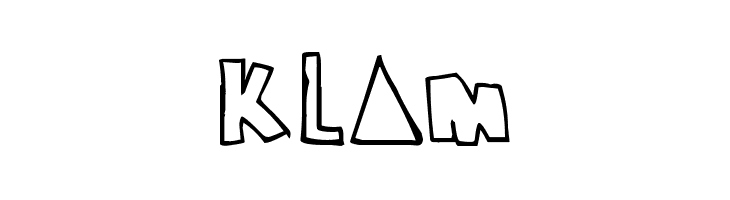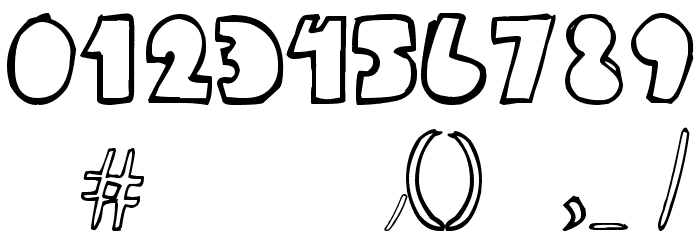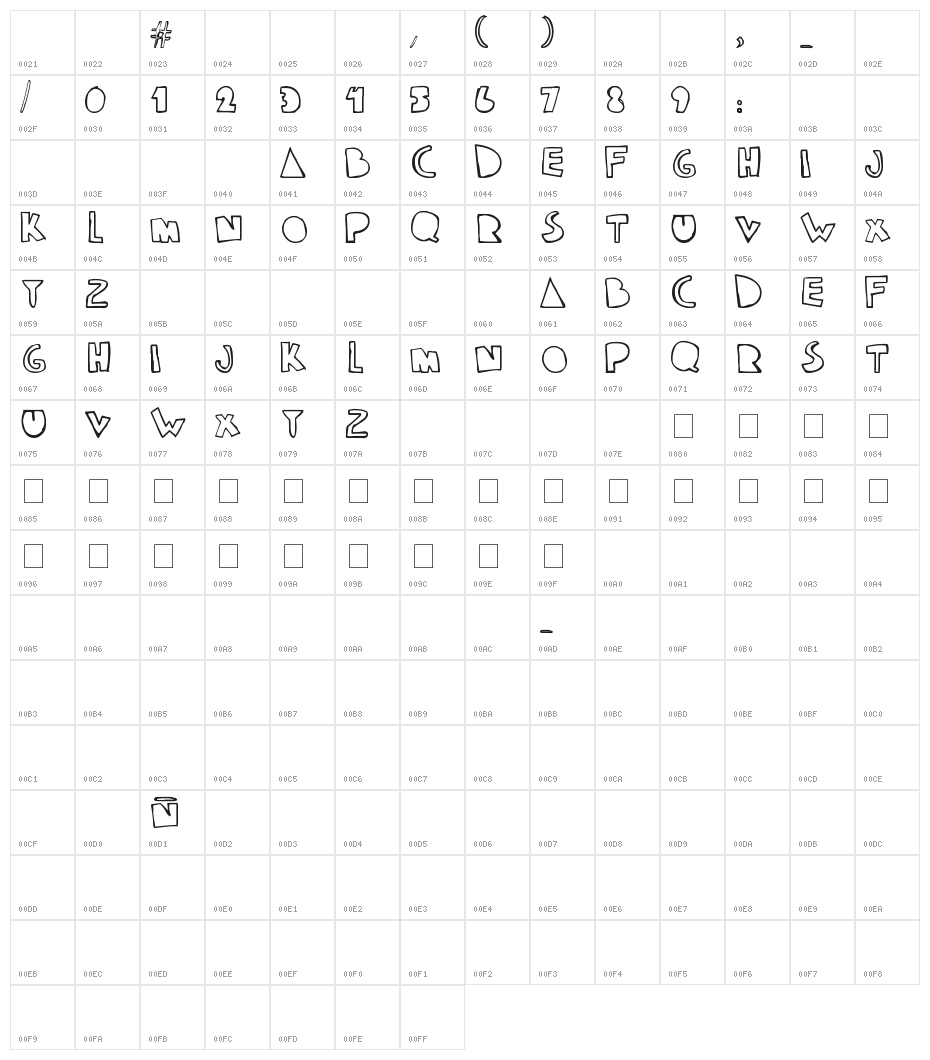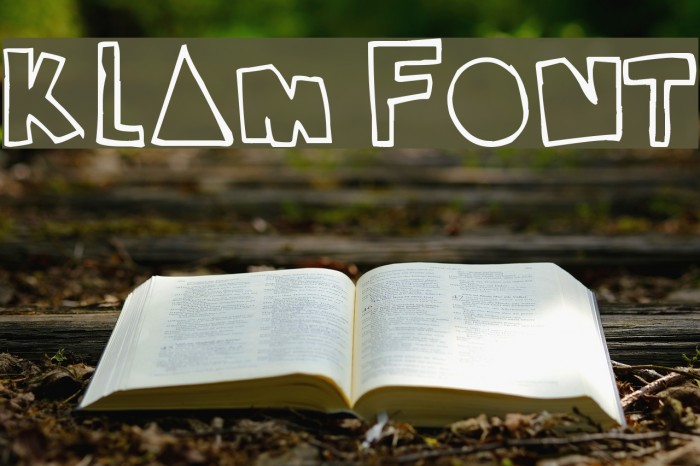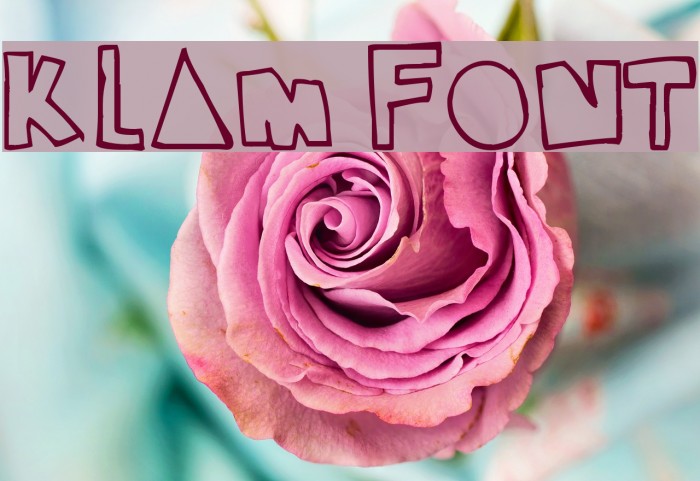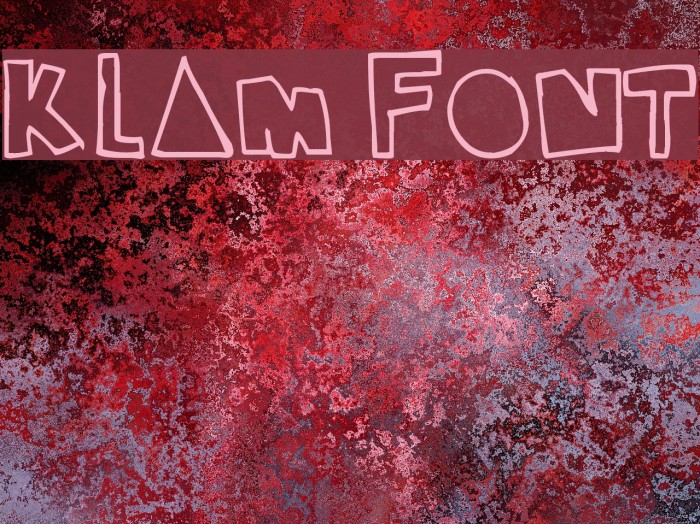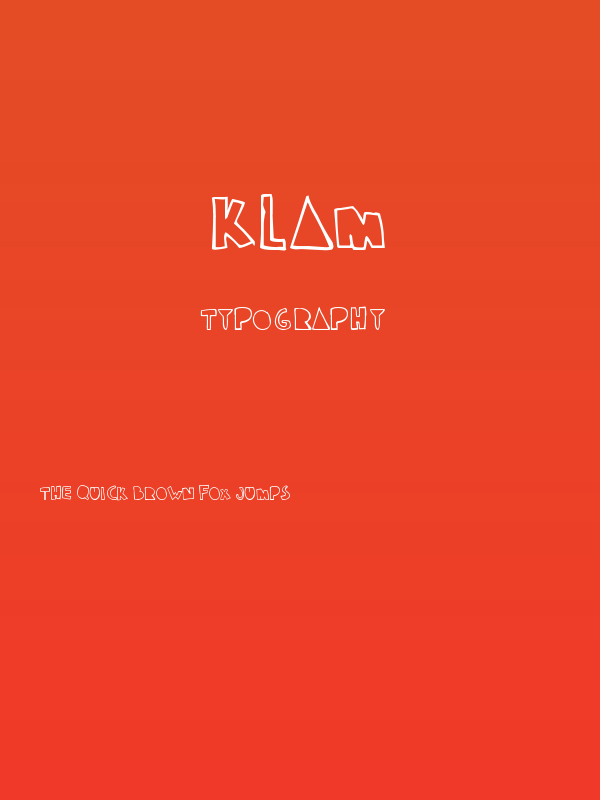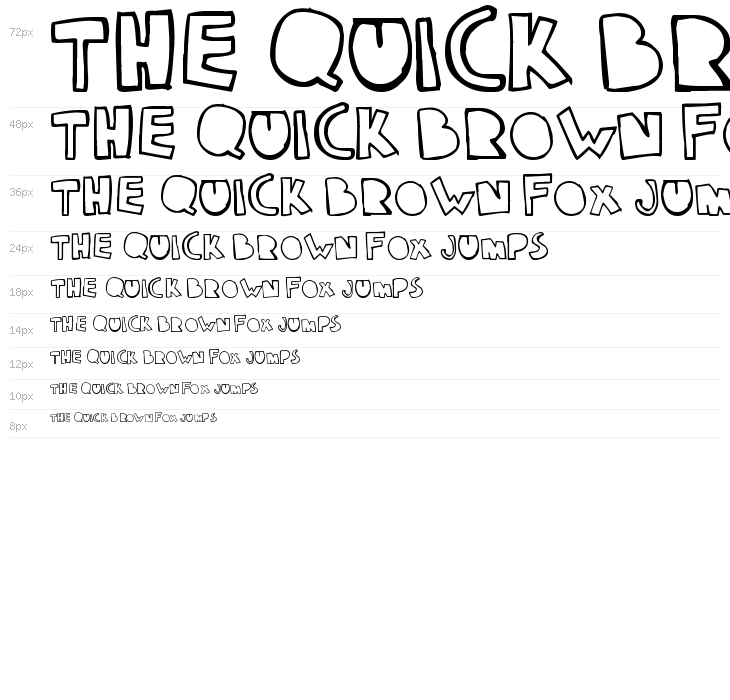
klam Font
klam Description
This playful and quirky font features bold, hand-drawn characters with a cartoonish flair. Each letter is uniquely shaped, giving it a fun and informal appearance. The strokes are uneven, adding to its whimsical charm. The font includes both uppercase and lowercase letters, numbers, and a selection of special characters. Its style is reminiscent of doodles or comic book lettering, making it ideal for projects that require a lighthearted and creative touch.
| Overall Style | Whimsical and playful |
| Proposed Projects | Ideal for children's books, comic strips, playful branding, party invitations, and creative posters. |